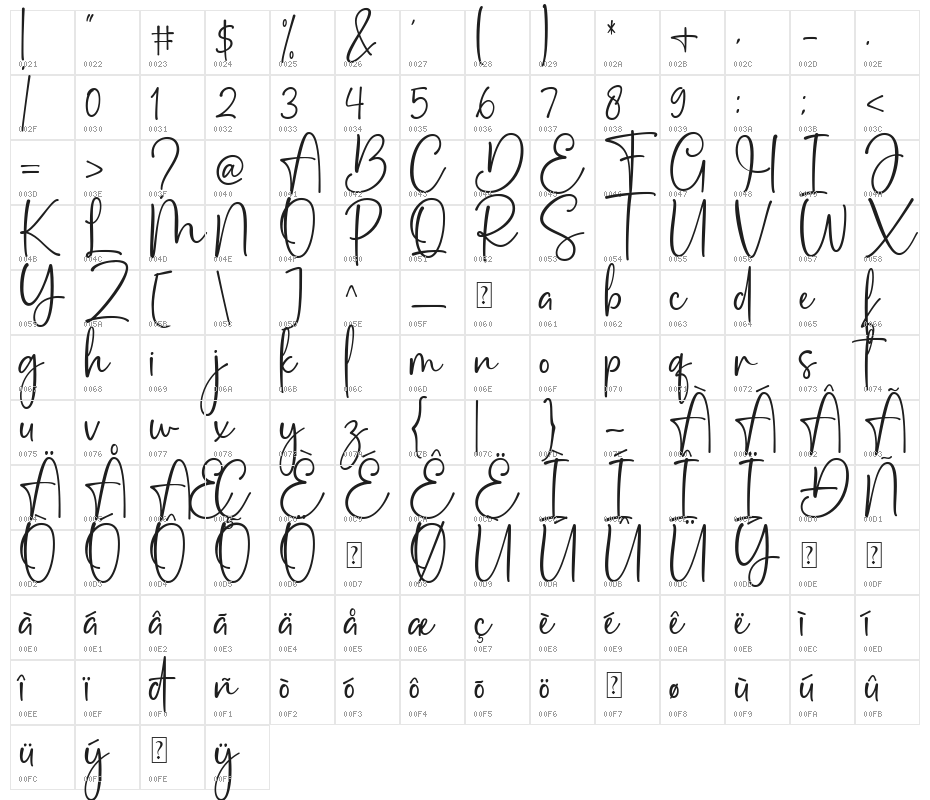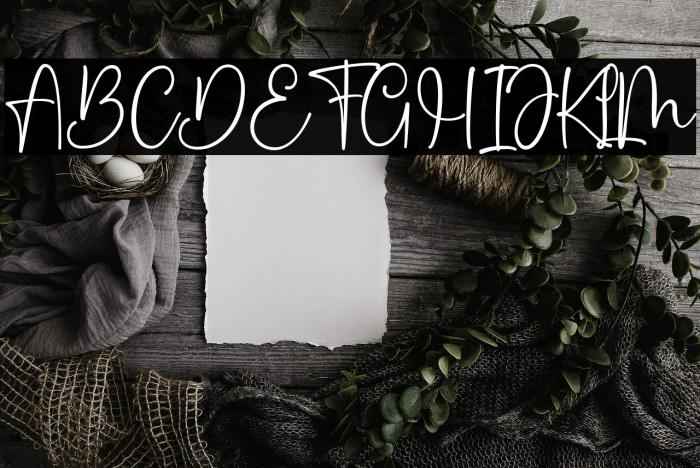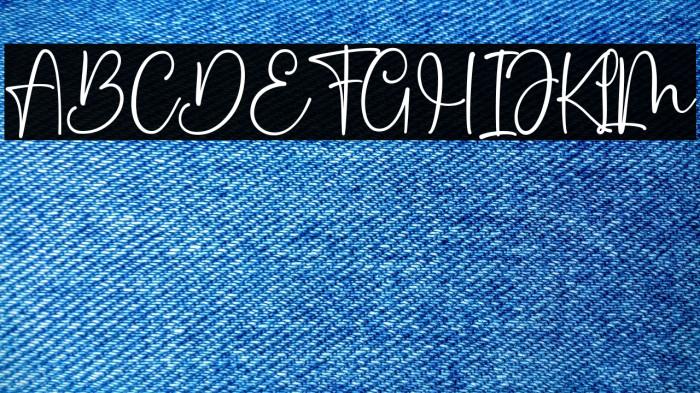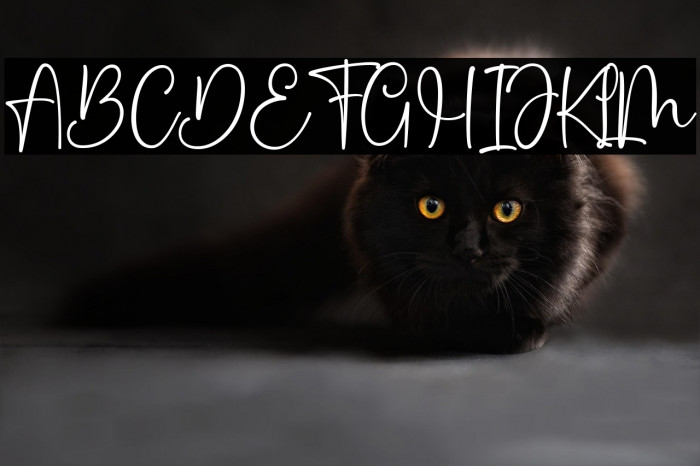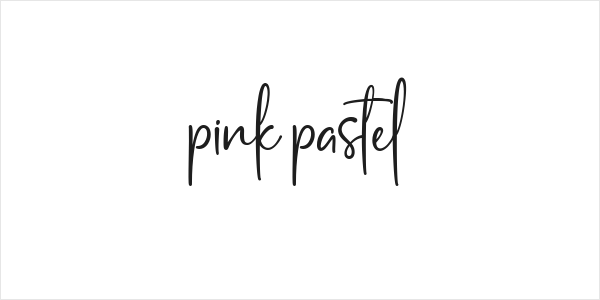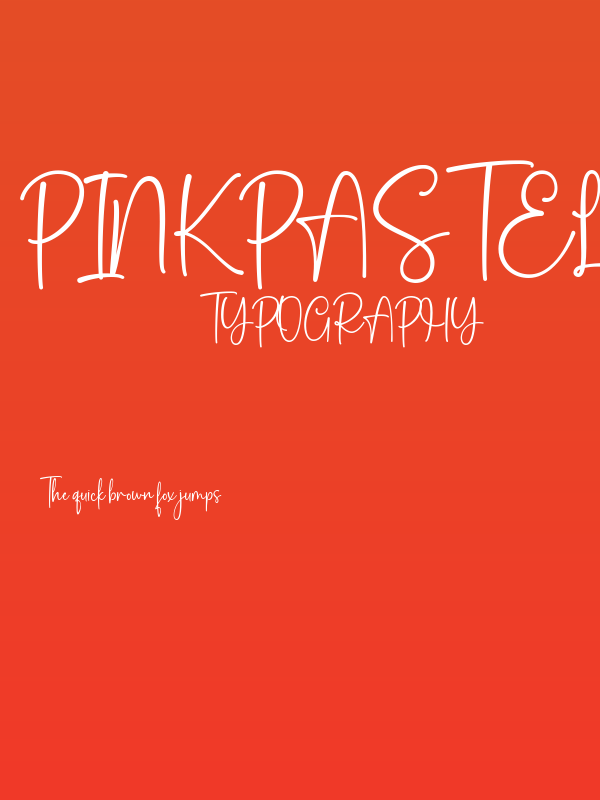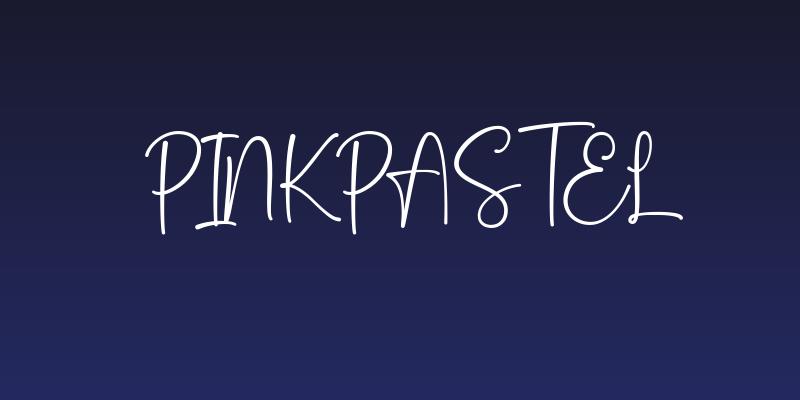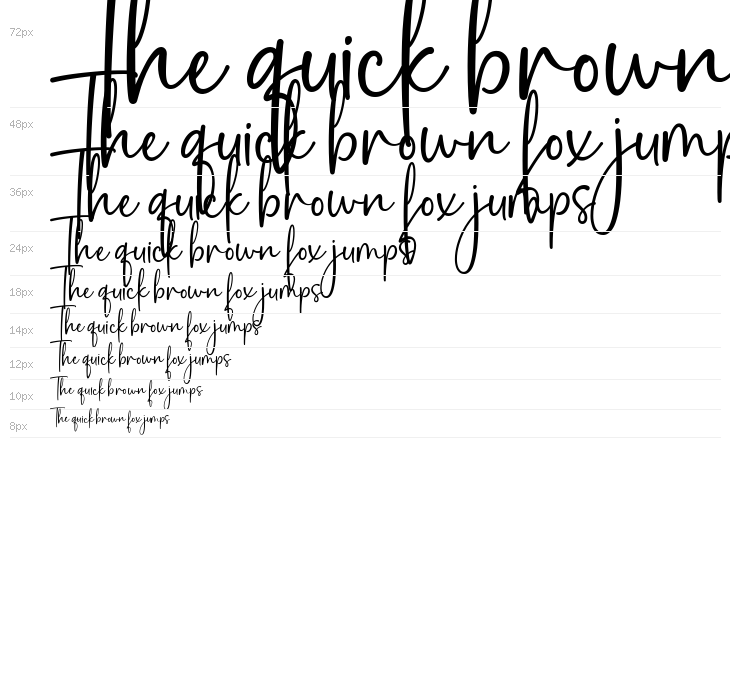
pink pastel Font
pink pastel Description
This font features a playful and whimsical handwritten style, characterized by its flowing and interconnected letterforms. The uppercase letters are tall and slender, with a slight slant that adds a dynamic feel. The lowercase letters maintain a consistent style, with some letters extending below the baseline, adding to the casual and informal appearance. Numbers and special characters are designed to match the overall aesthetic, with a similar fluidity and charm. The font's unique personality makes it suitable for creative projects that require a personal touch.
Use CaseLogos, Headlines, Creative projects
Proposed ProjectsIdeal for greeting cards, invitations, personal branding, and creative social media graphics.